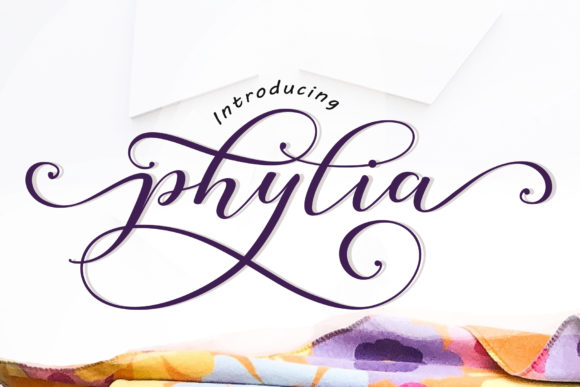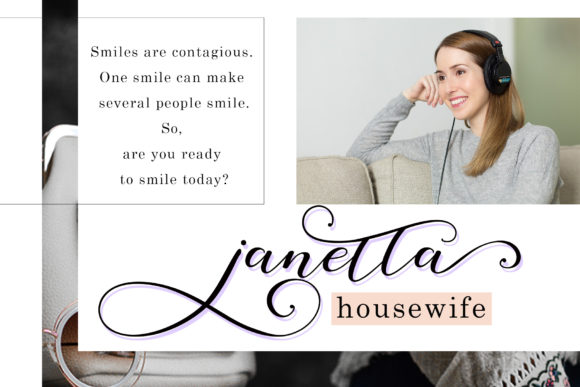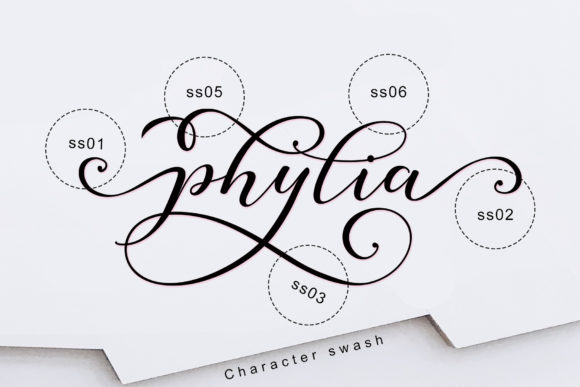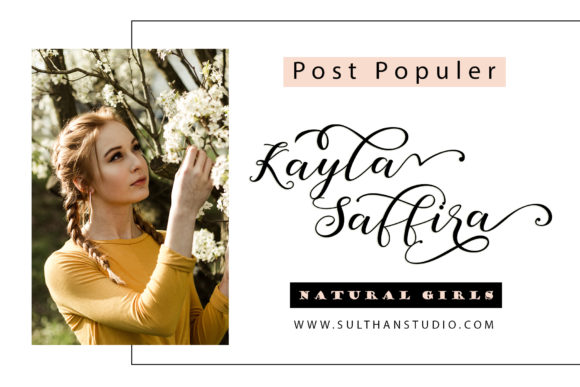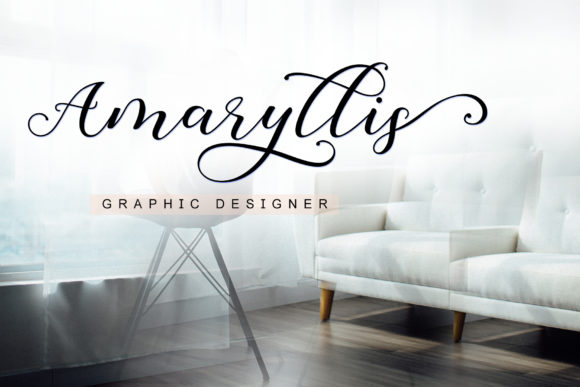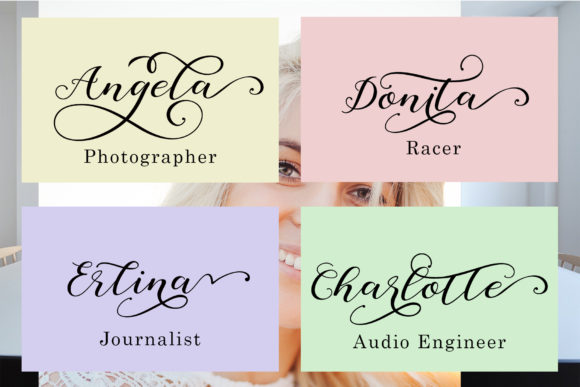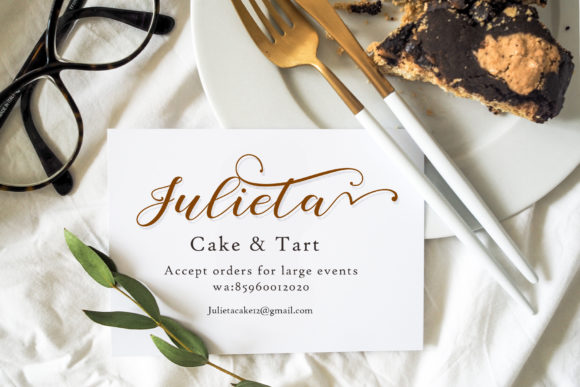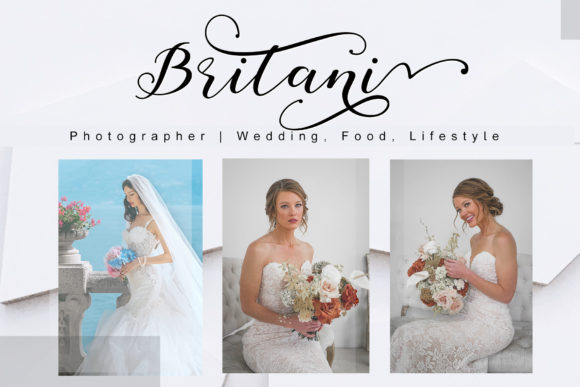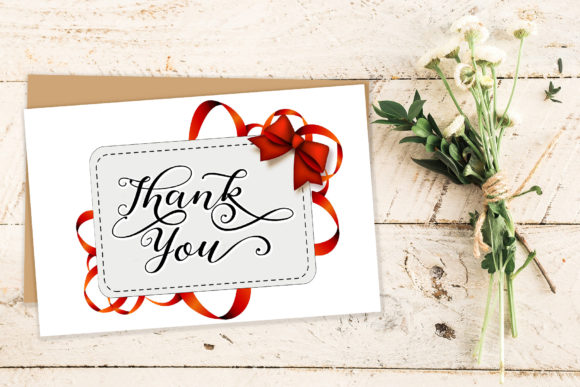
Phylia Font
About Phylia Font
Phylia is a beautiful handwritten script font . Perfect for branding projects, home-ware designs, product packaging and so much more!